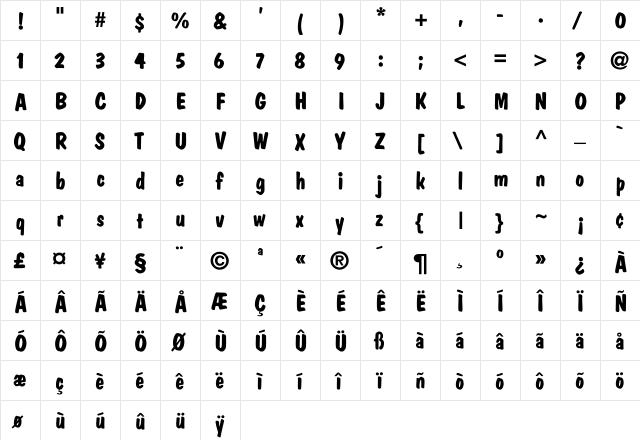
Frazier Bold Regular
Design Context for Frazier Bold Typeface
Frazier Bold takes a measured approach to typography — its balanced proportions and neutral character make it a reliable workhorse for both digital and print work. The heavy weight commands attention and anchors typographic hierarchies.